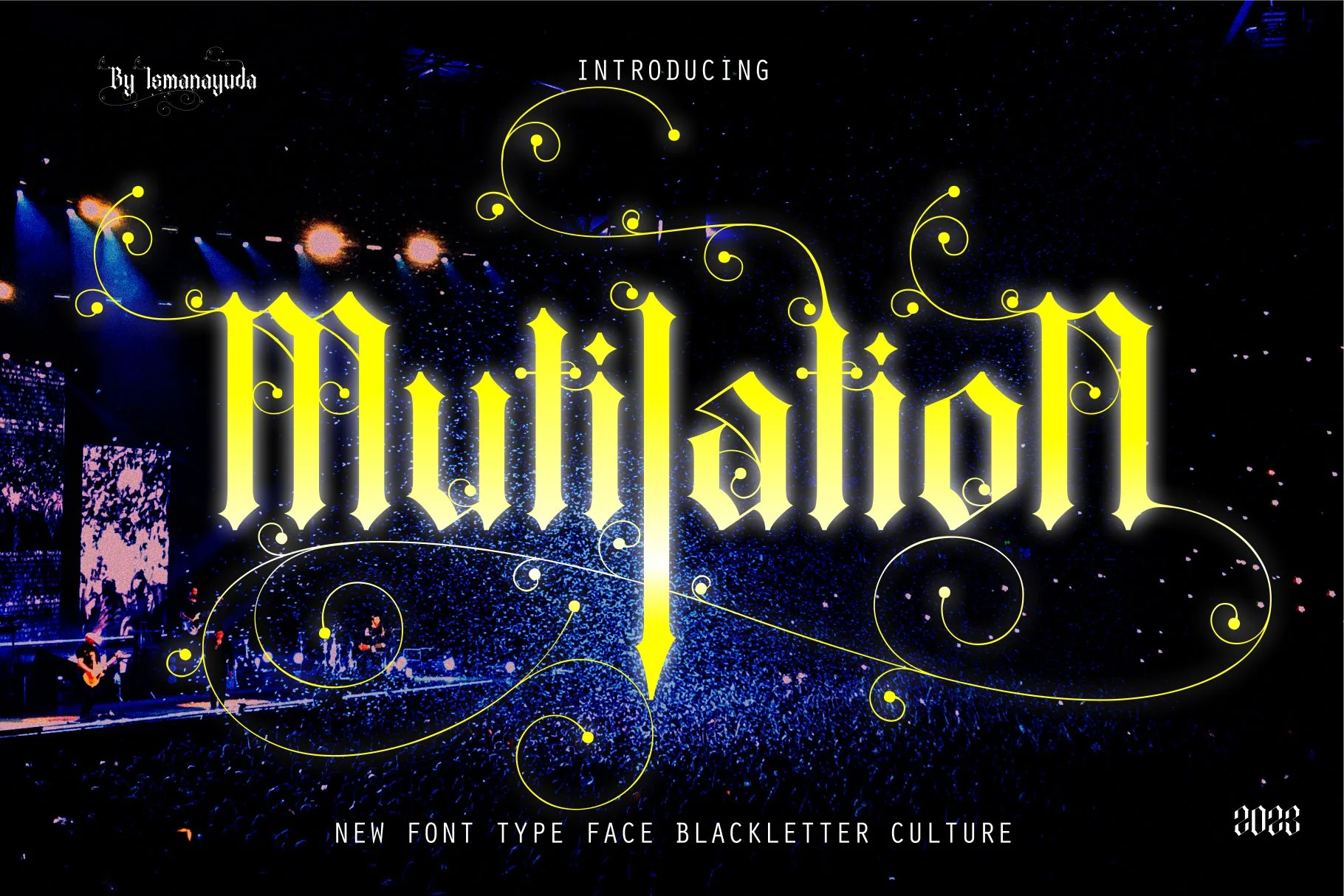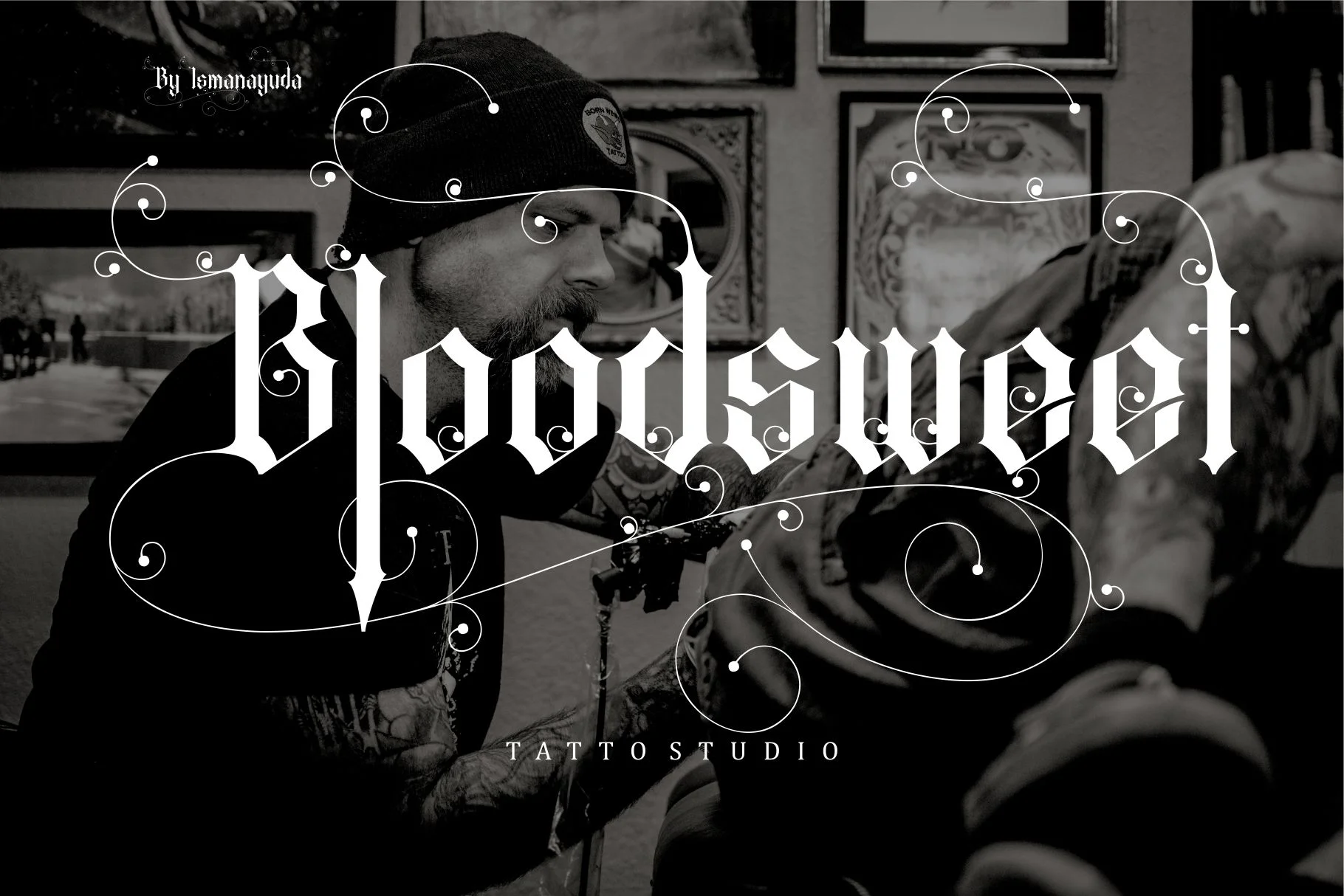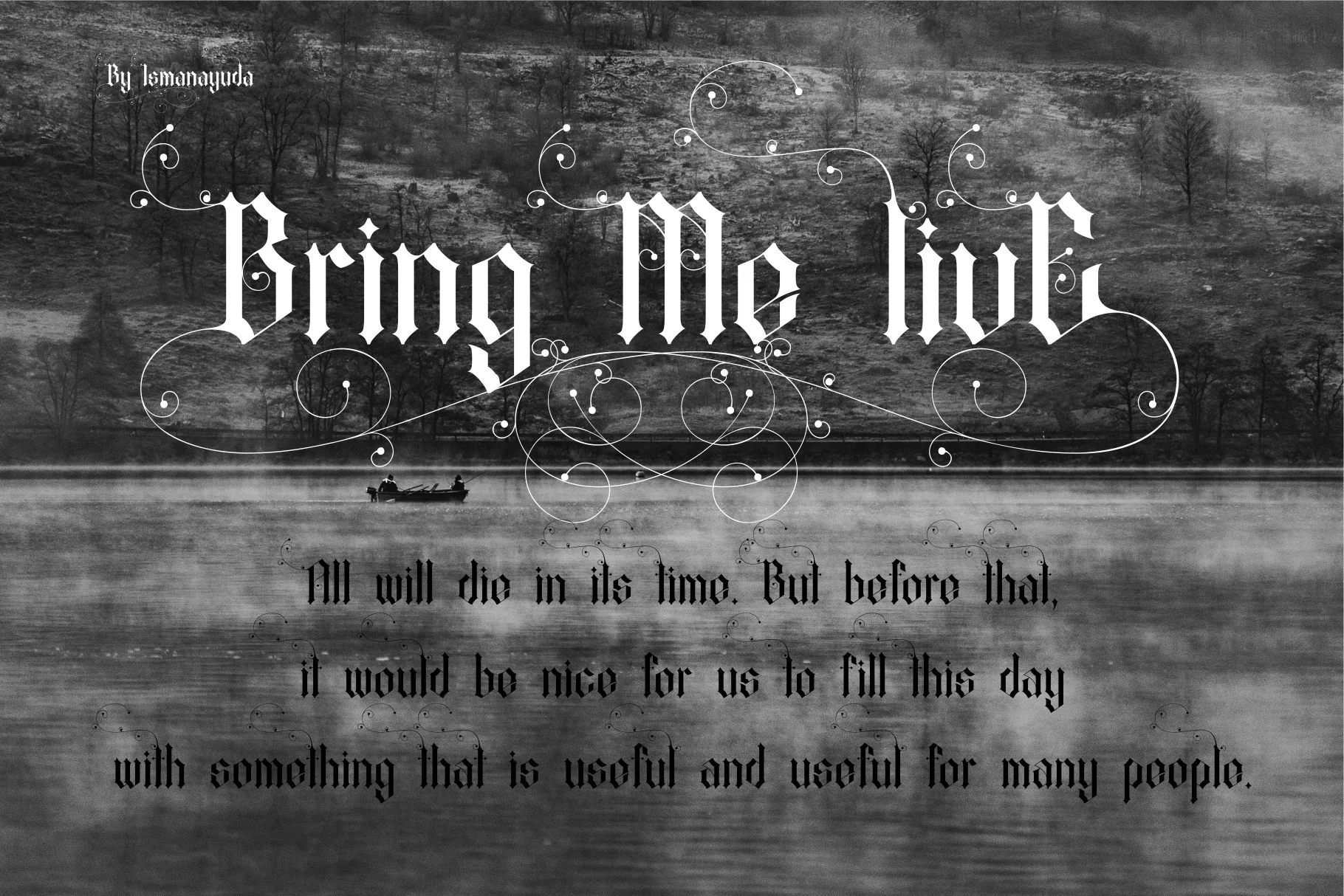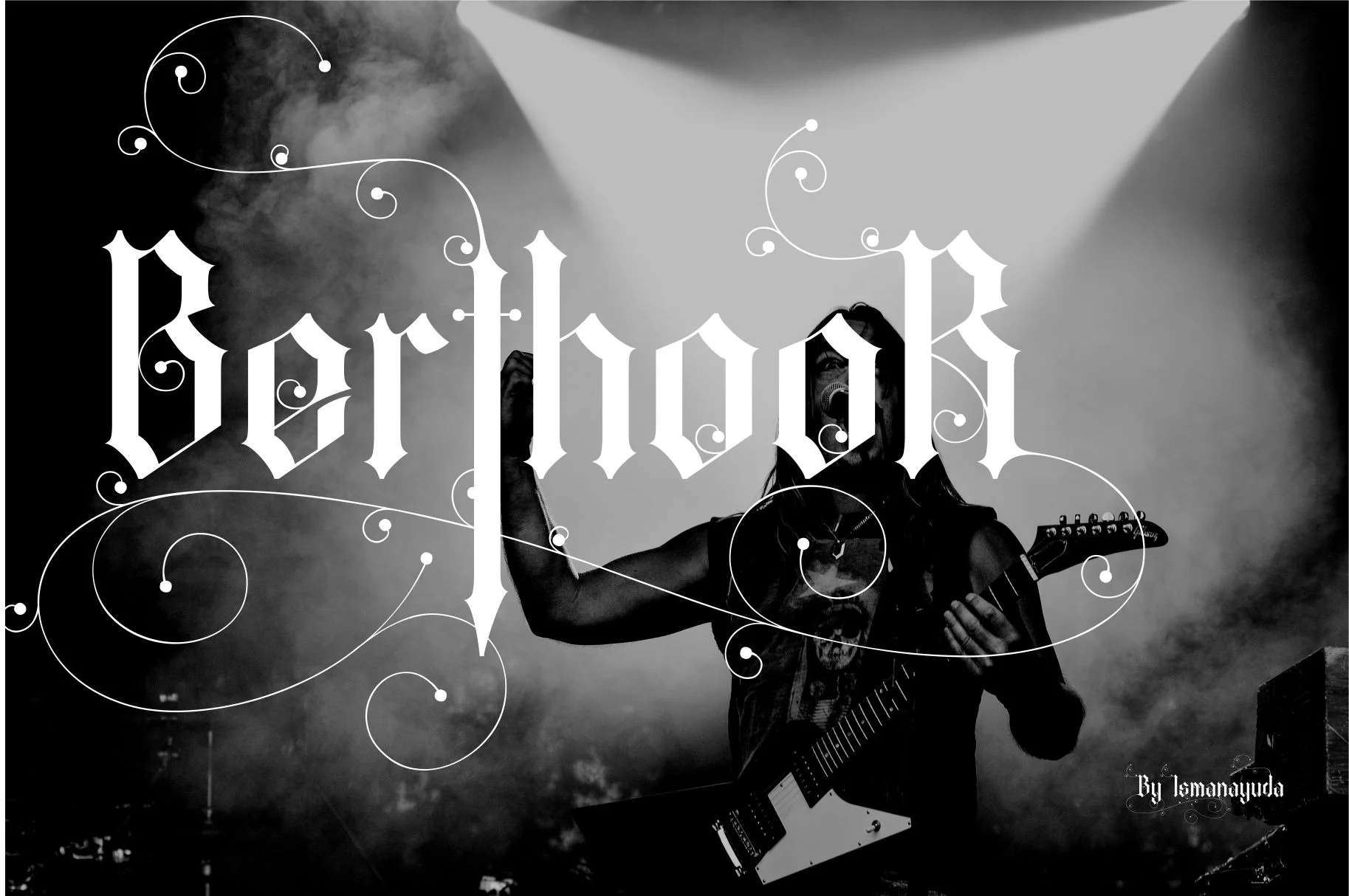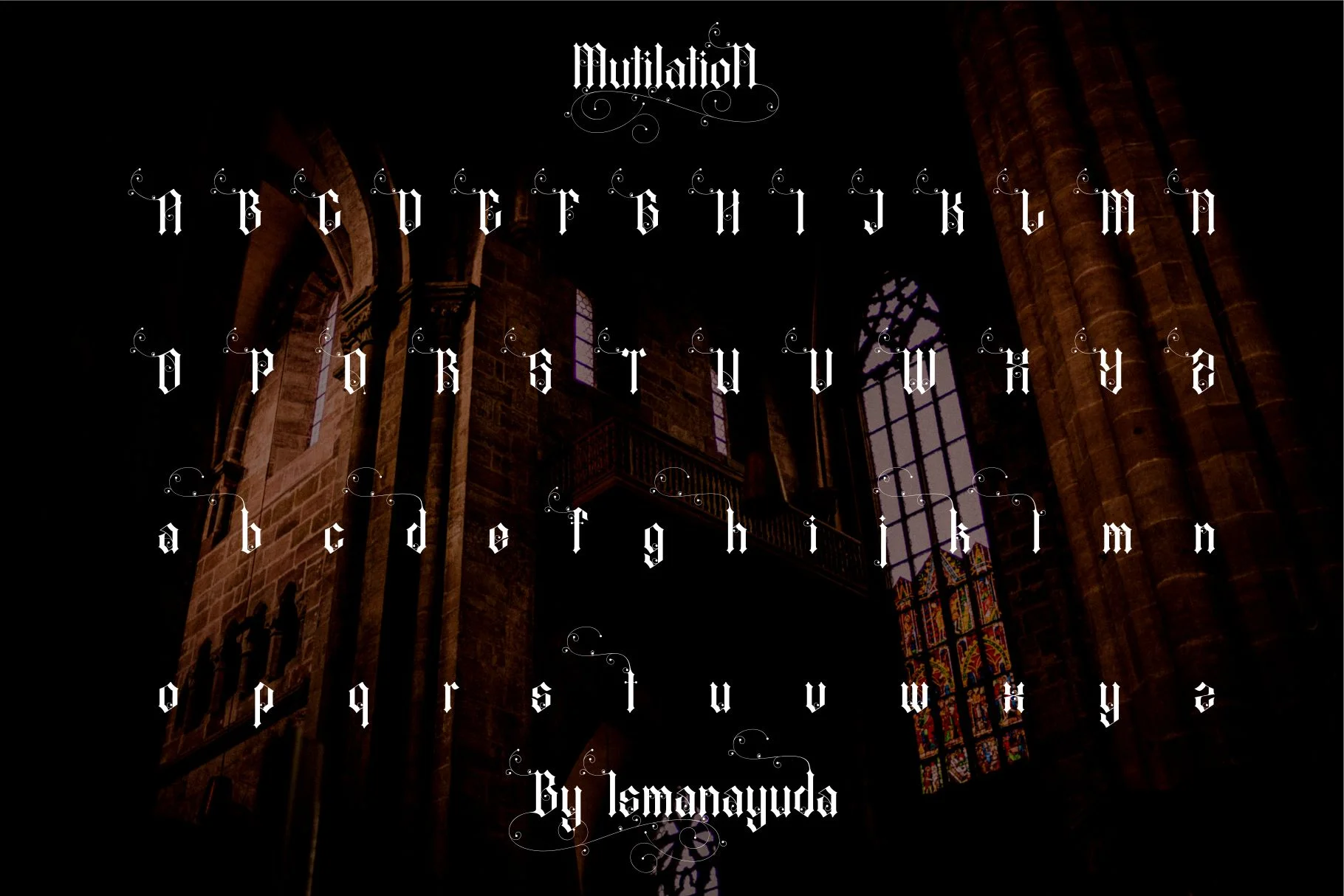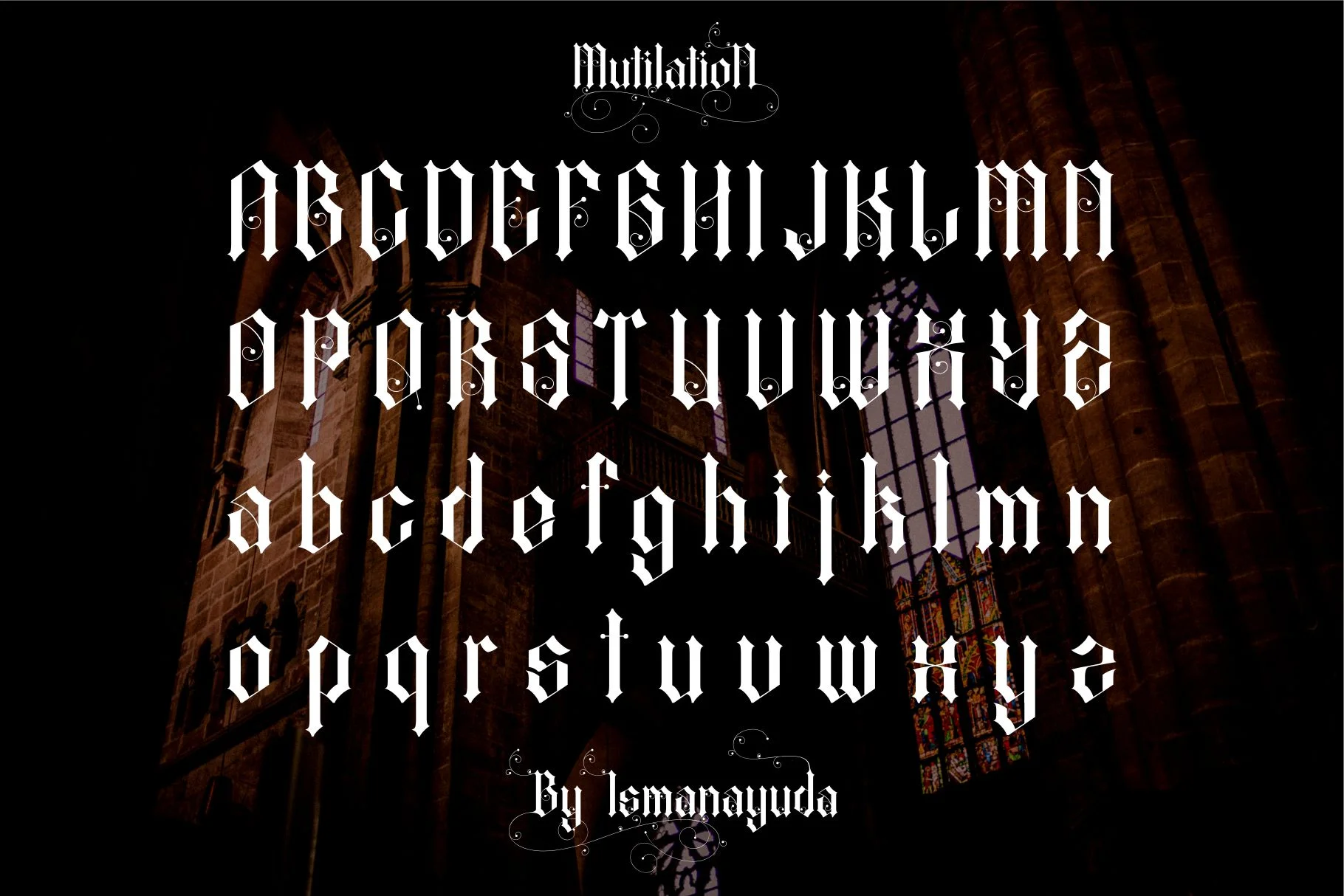
Mutilation
MutilatioN is a bold, modern blackletter font that combines traditional Gothic letterforms with "beautiful and charming stylistics". It is characterized by dramatic, saturated calligraphic strokes and elaborate serif swirls that evoke a classic yet aggressive aesthetic. The designer named the font as a tribute to their former band of the same name. Its intricate, vintage-inspired design makes it particularly suitable for high-impact visual projects such as tattoo studio branding, metal band logos, and gothic-themed apparel or merchandise.